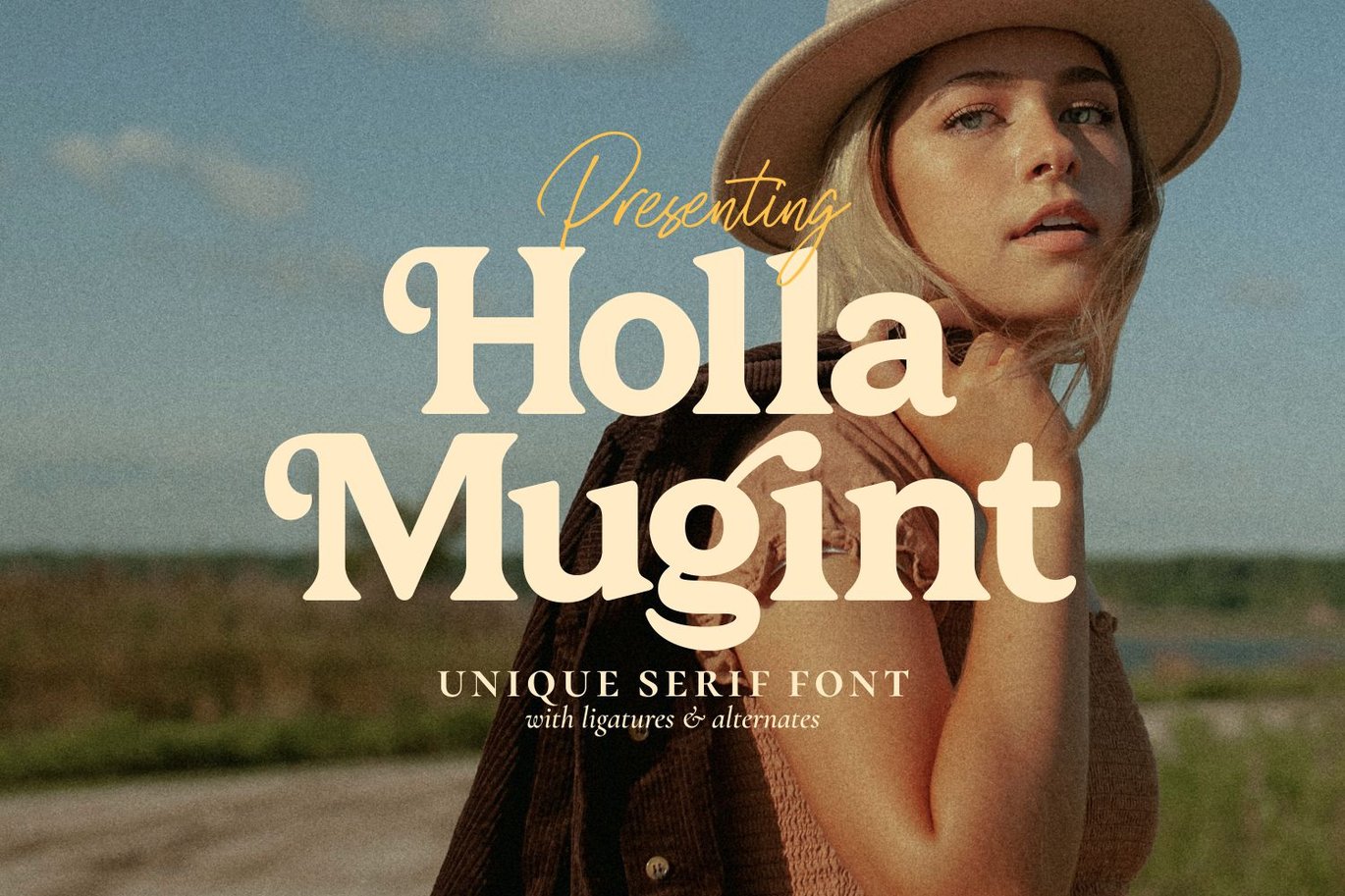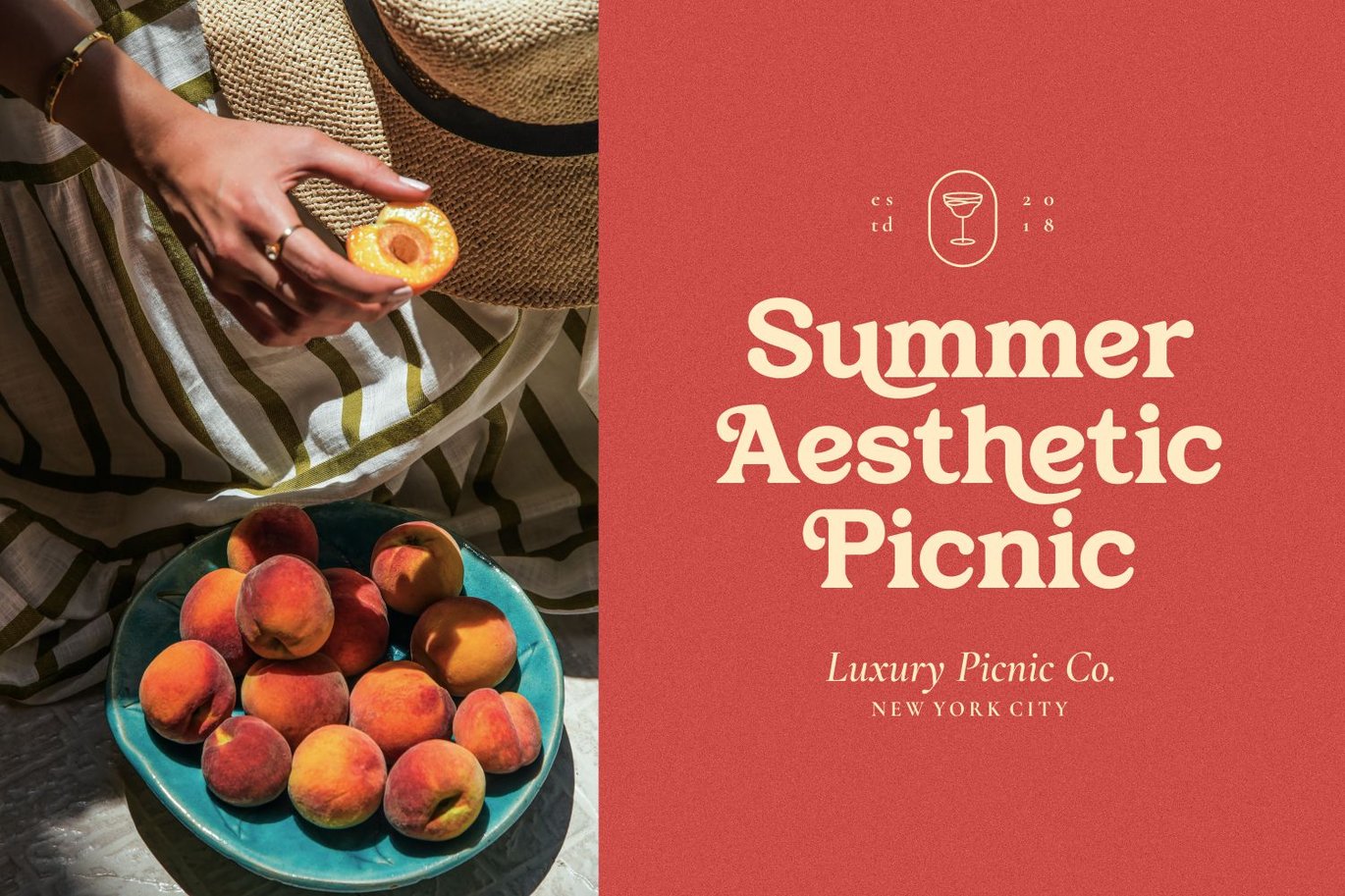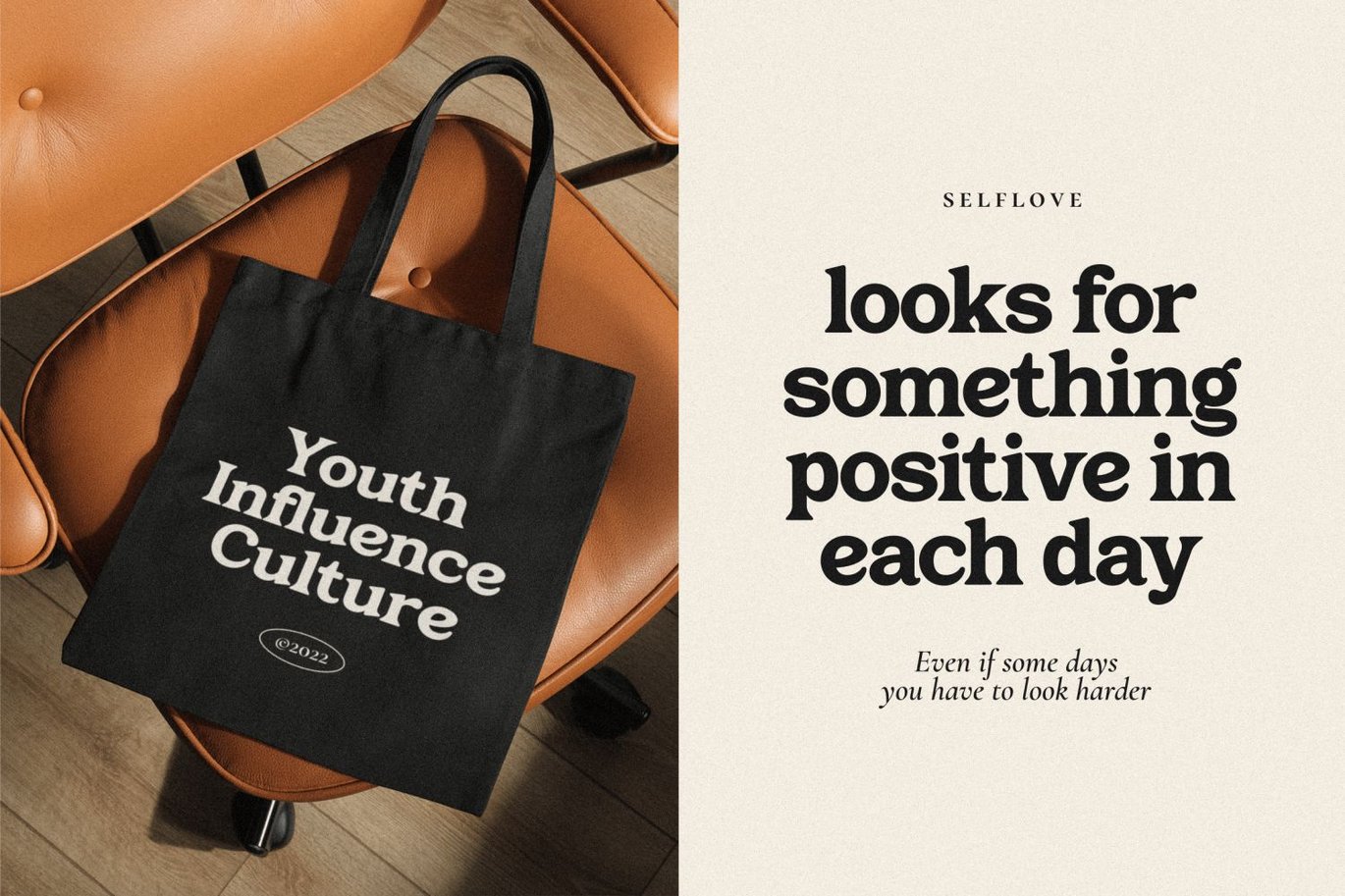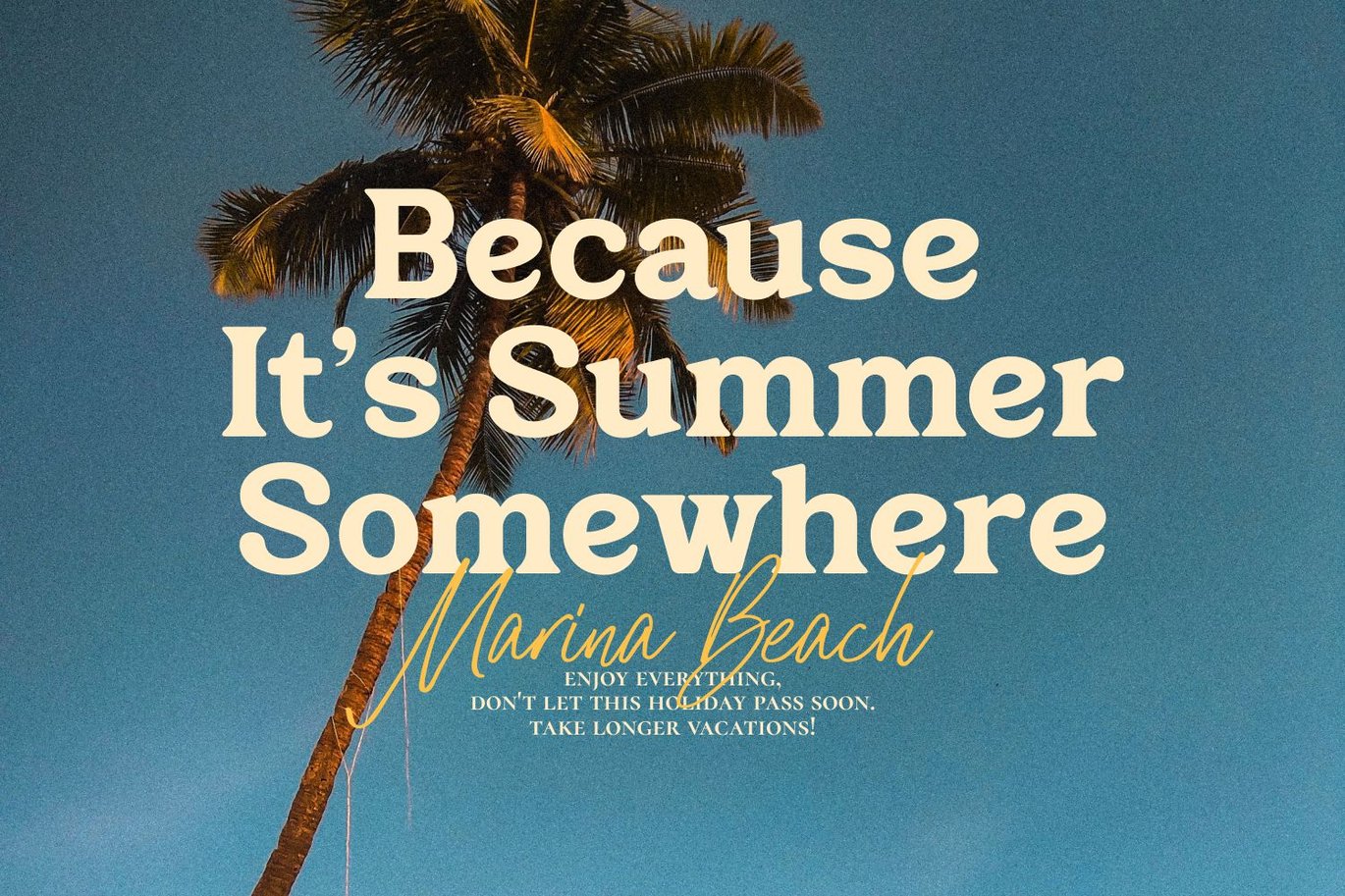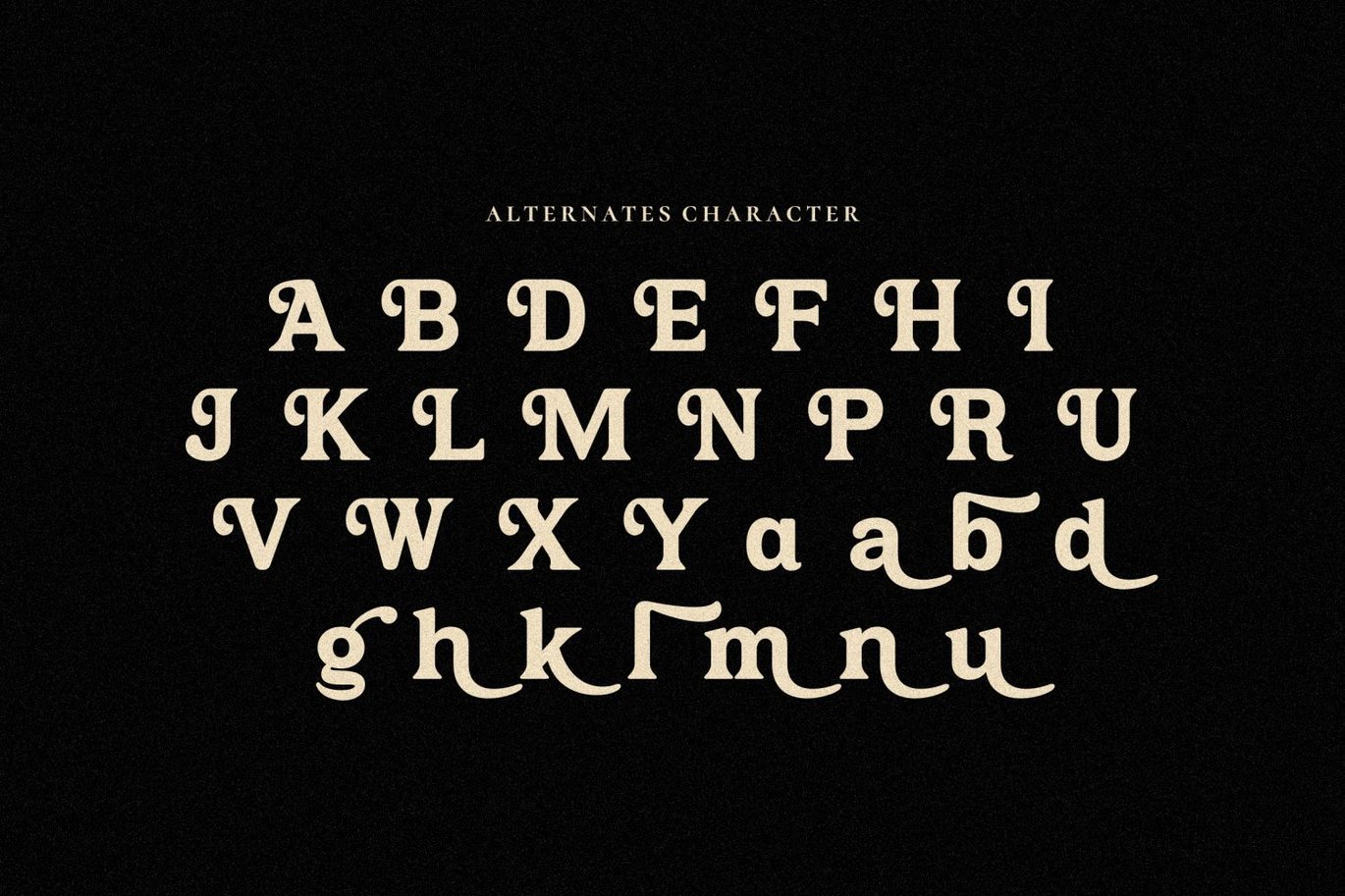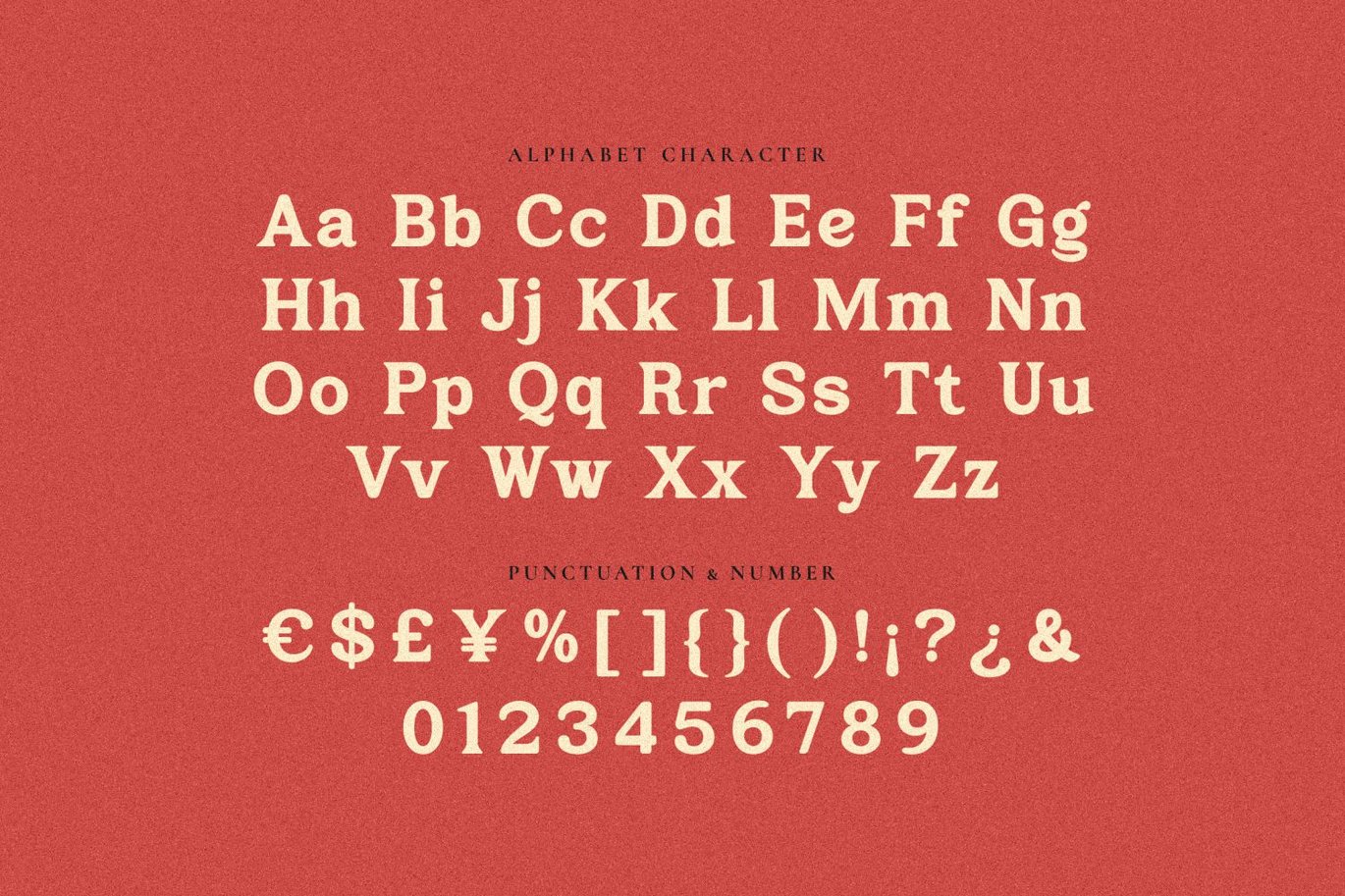
Holla Mugint – Unique Serif Font
Holla Mugint is unique serif display font with lot of alternates. Holla Mugint is ideal for headlines, headers, logos, labels, packaging, postcards, presentations, magazines, invitations, etc.
Font Features
-Uppercase
-Lowercase
-Alternatives
-Ligatures
-Numerals & Punctuation
-Multilingual Support